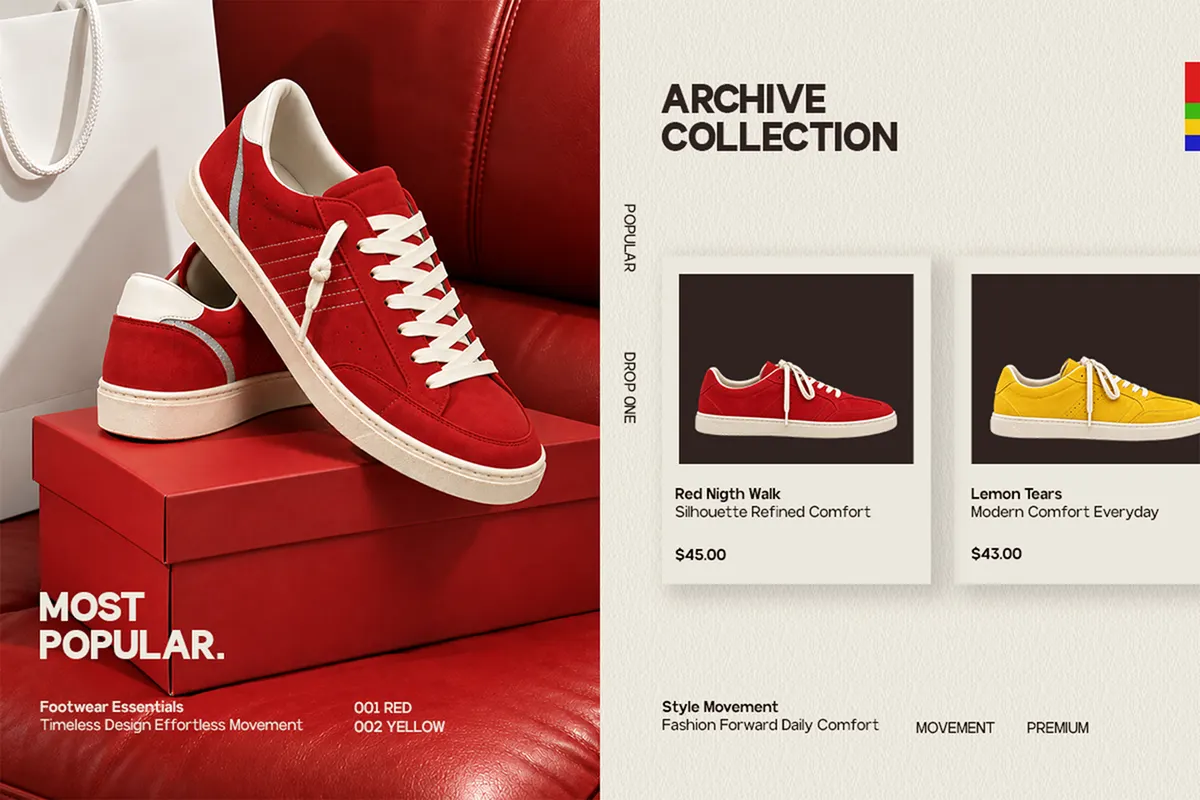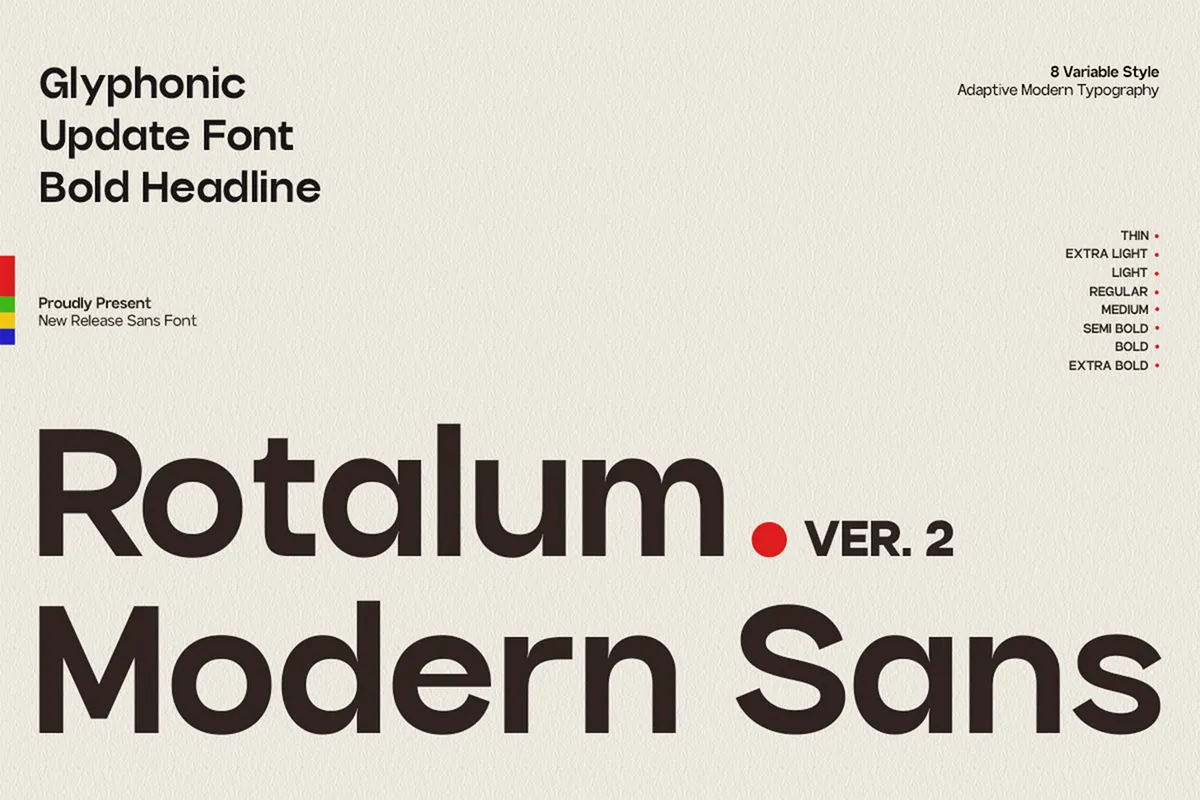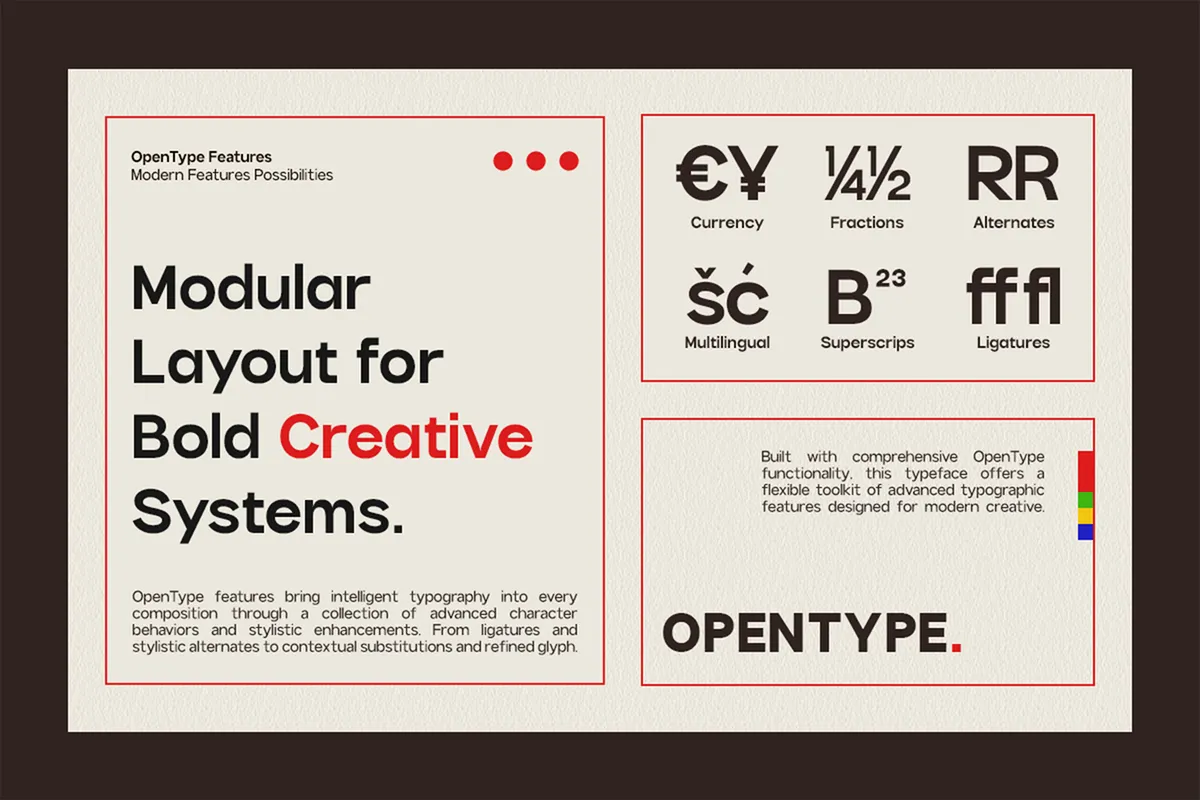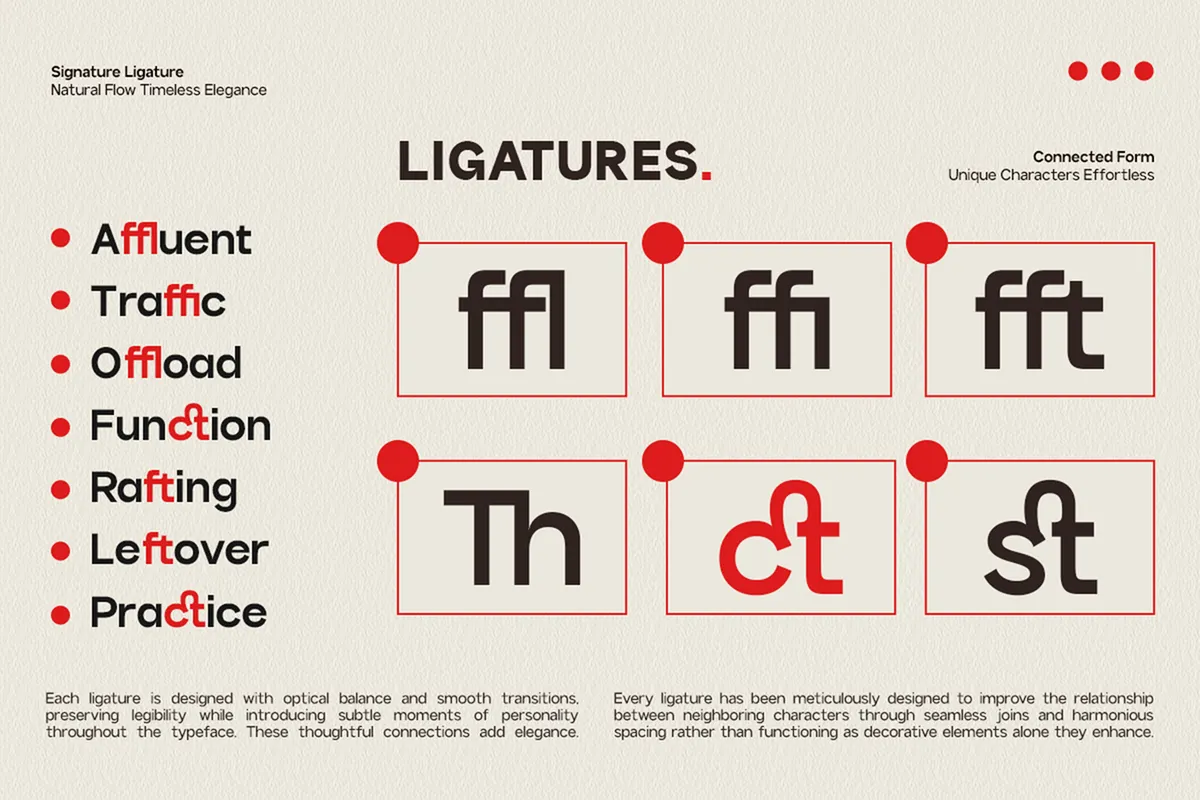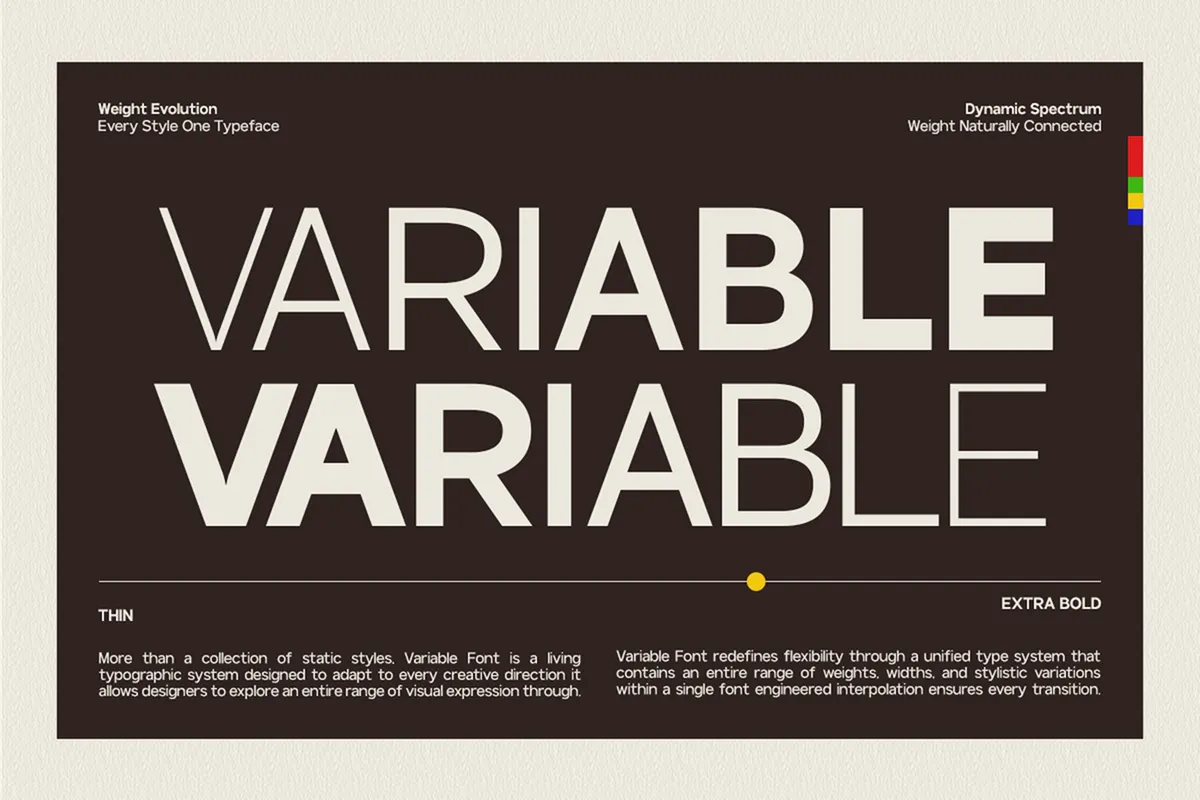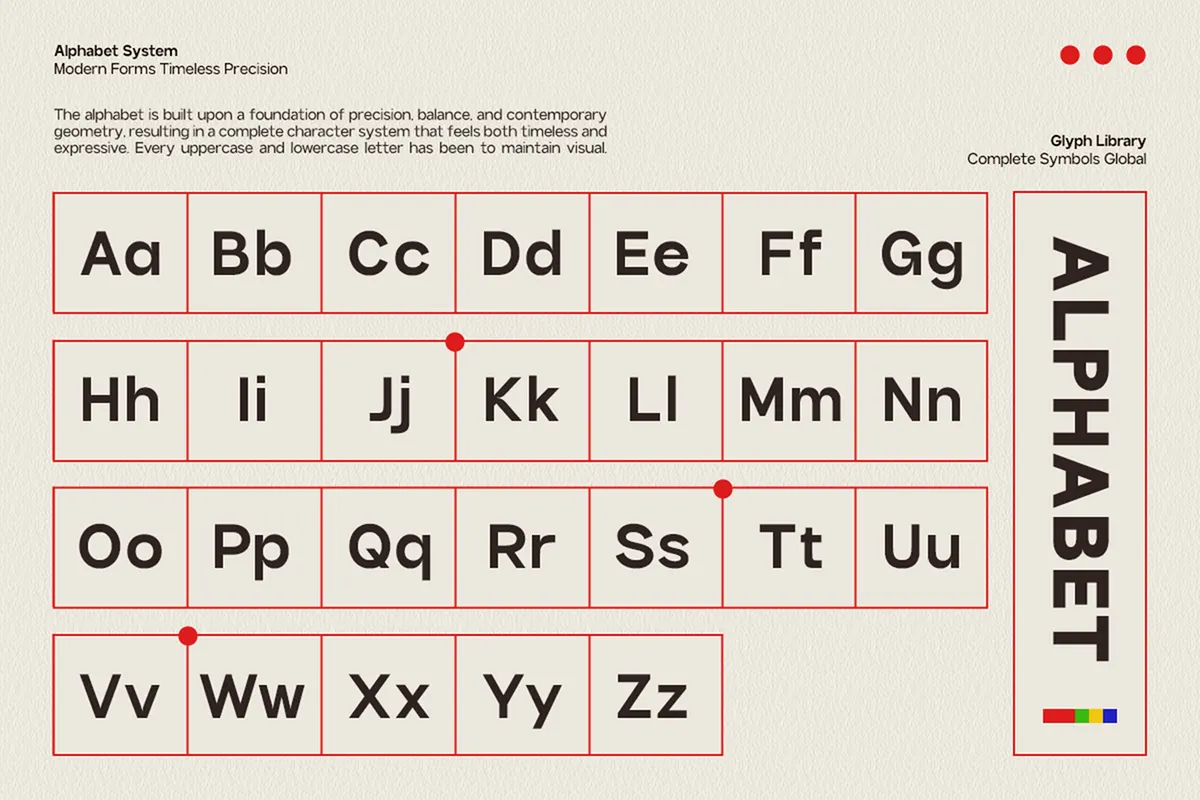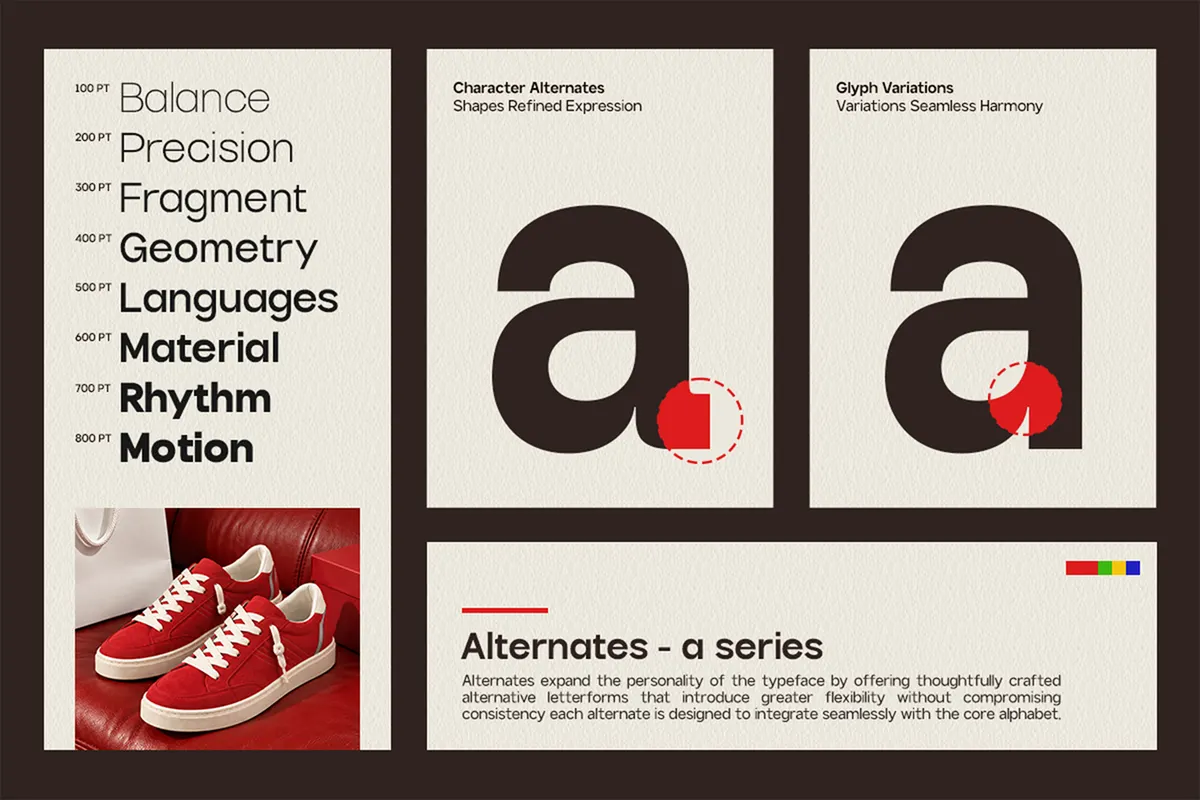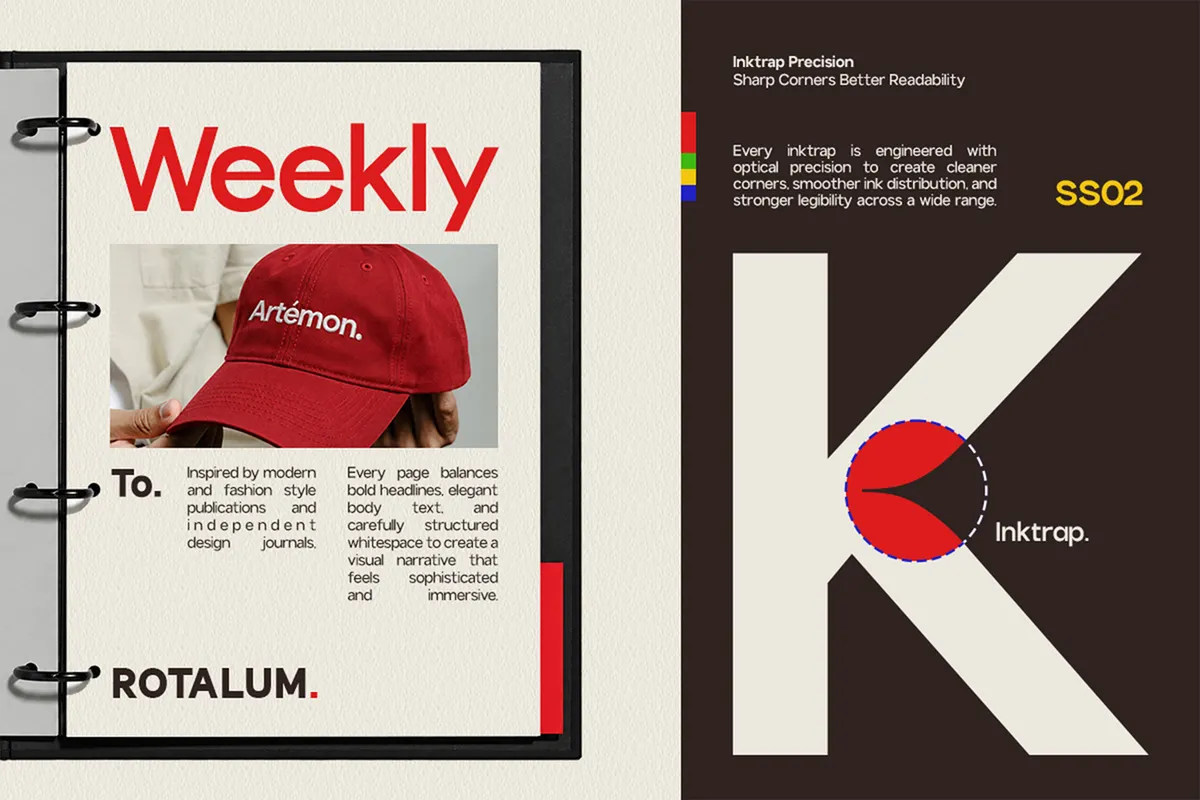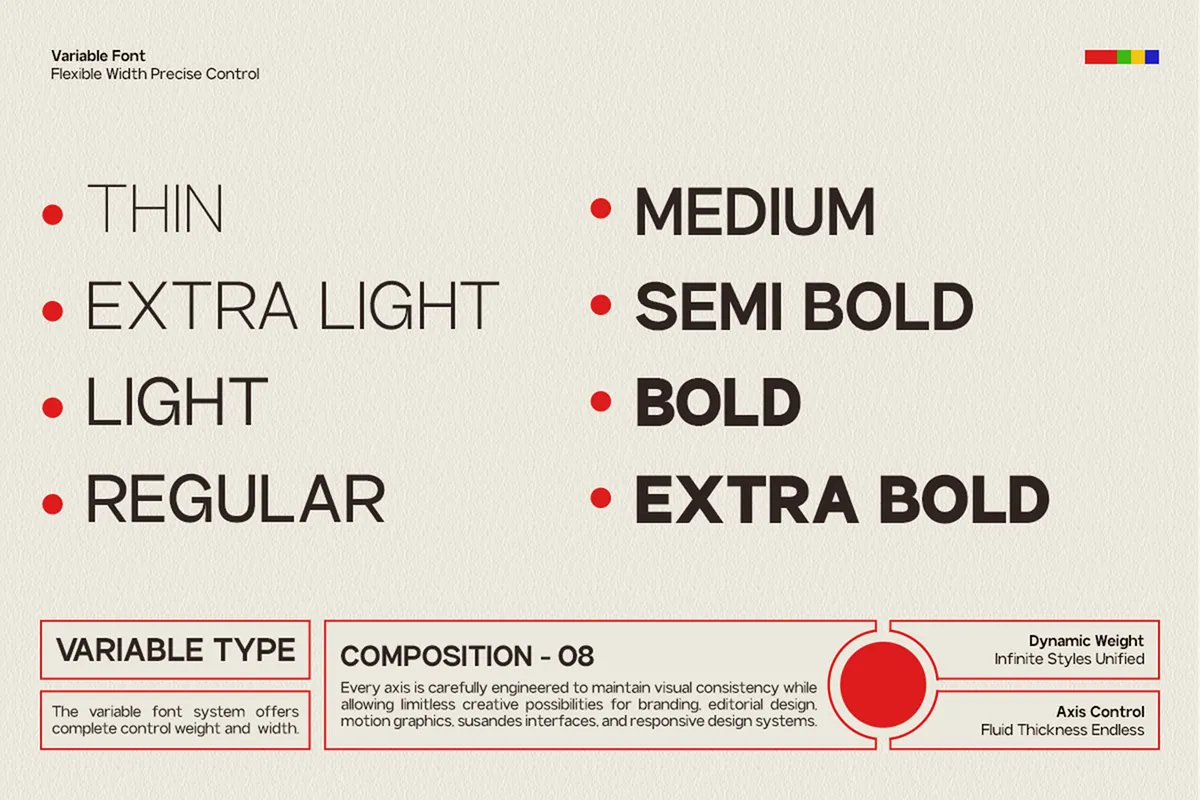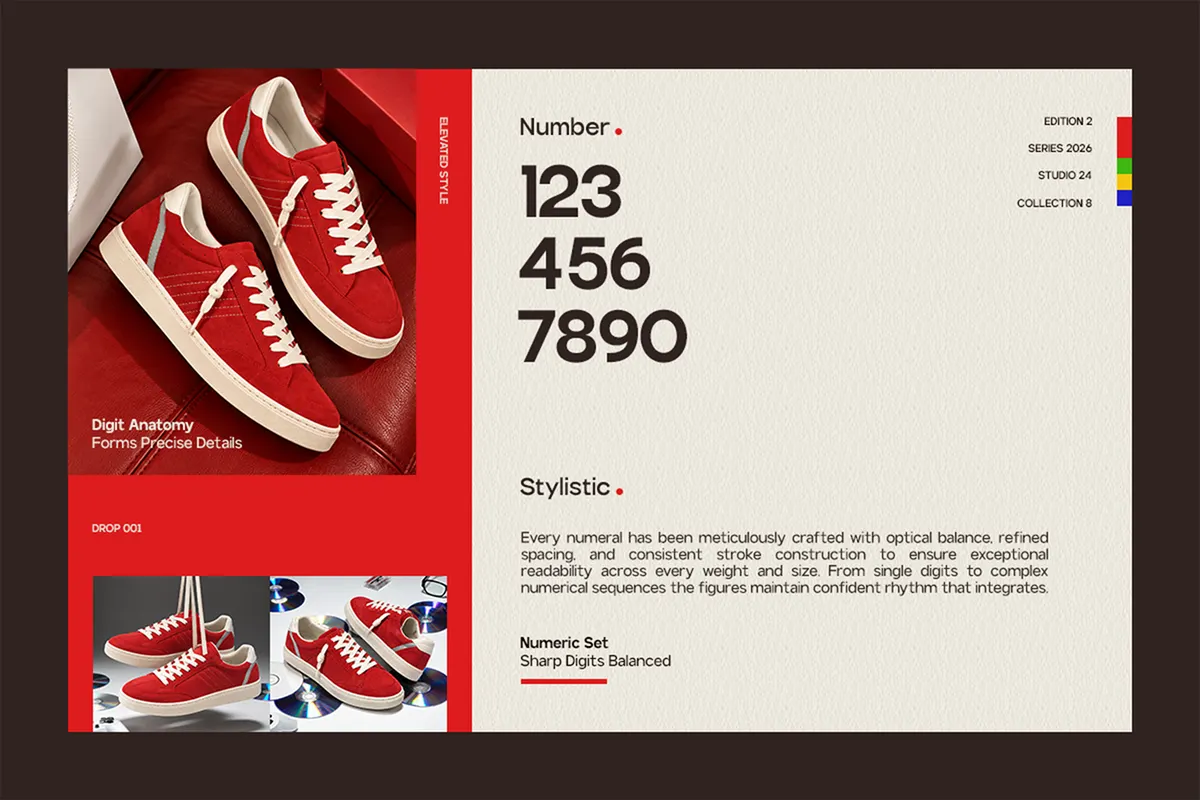
GC Rotalum Vol.II - Modern Bold Sans
GC Rotalum Vol.II is a bold sans serif font built on near-circular bowls with the corners quietly squared off, so the letters hold a straight line of text without rolling. Eight weights run from Thin to ExtraBold, and a variable file puts the whole weight axis on one slider.
Two stylistic sets, fractions, ordinals, and superiors give the family a second register for tables and small print. Use it for wayfinding, packaging systems, sports branding, annual reports, transit schedules, app headers, catalogue spreads, and price lists.
- 8 styles: Thin, ExtraLight, Light, Regular, Medium, SemiBold, Bold, ExtraBold;
- variable file with a 100–800 weight axis and 8 named instances;
- uppercase & lowercase;
- numerals, punctuation & symbols;
- ligatures, stylistic alternates, two stylistic sets, fractions, ordinals, superiors, localized forms;
- Latin Extended-A, covering Central and Eastern European languages;
- 400 glyphs per style.